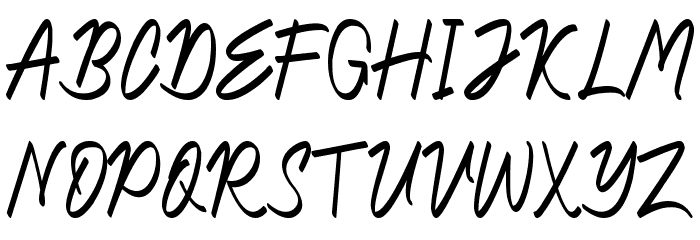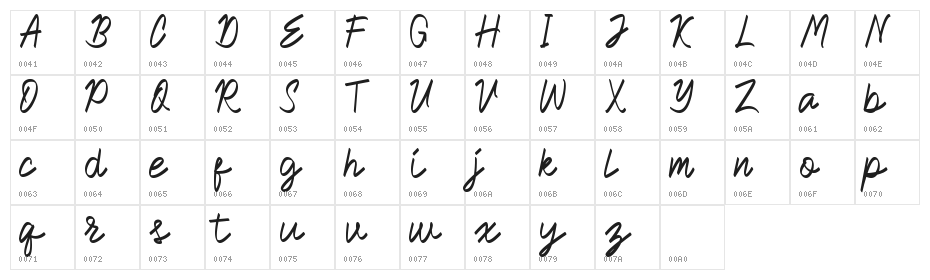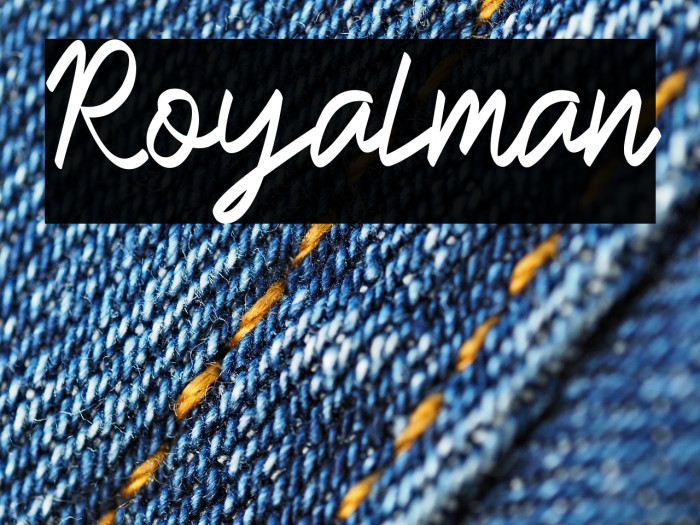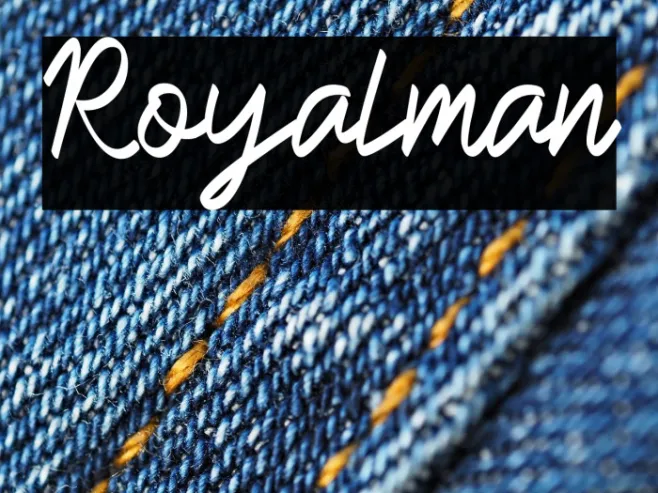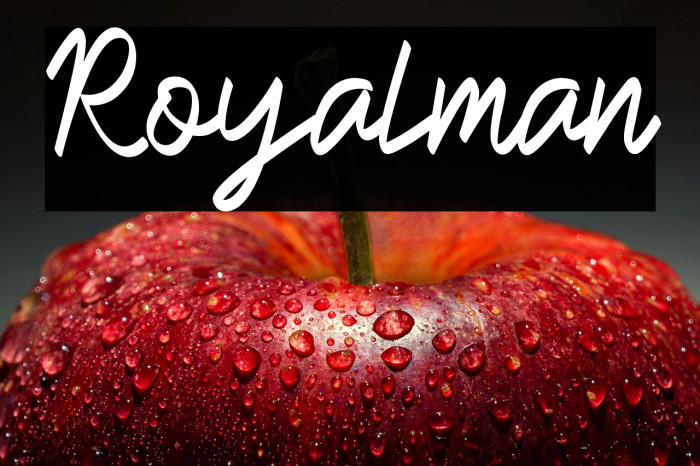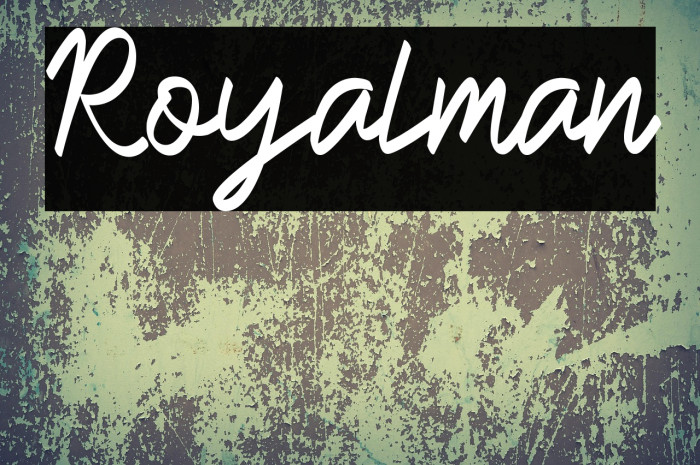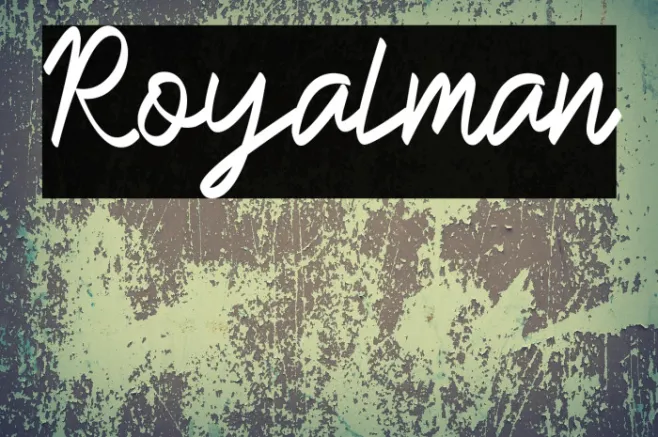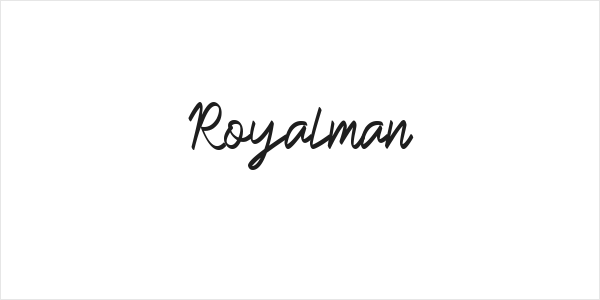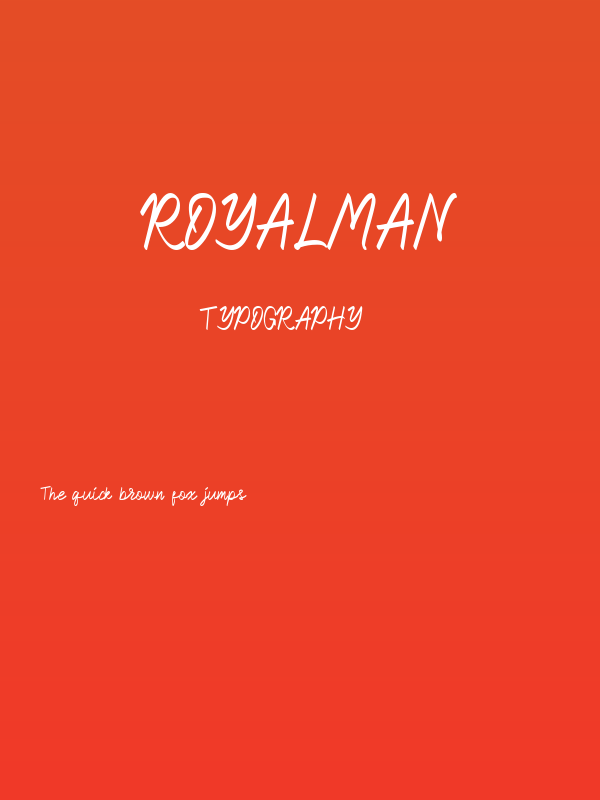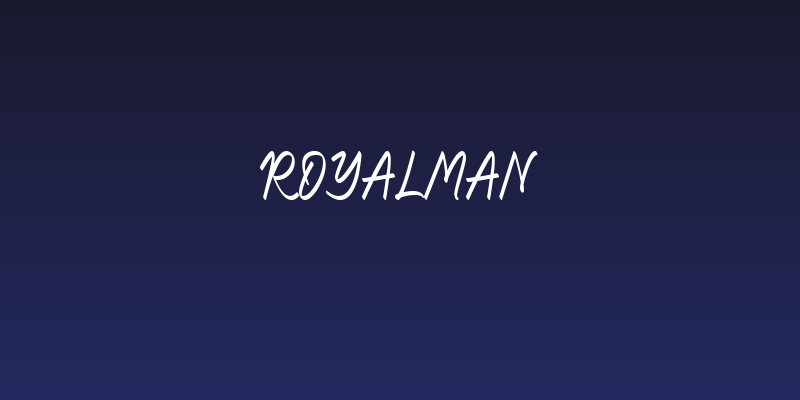
Royalman Font
Royalman Description
This font exudes a dynamic and energetic style, characterized by its cursive, handwritten appearance. The letters are elegantly connected, creating a fluid and continuous flow. The strokes are moderately thick, providing a bold presence while maintaining a sense of grace and sophistication. The uppercase letters stand tall with a slight slant, adding to the overall sense of movement. The lowercase letters are equally expressive, with distinctive loops and curves that enhance the font's lively character. This font is versatile, suitable for a variety of creative projects where a personal touch is desired.
| Proposed Projects | Ideal for wedding invitations, greeting cards, branding projects, and any design that requires a personal, elegant touch. |